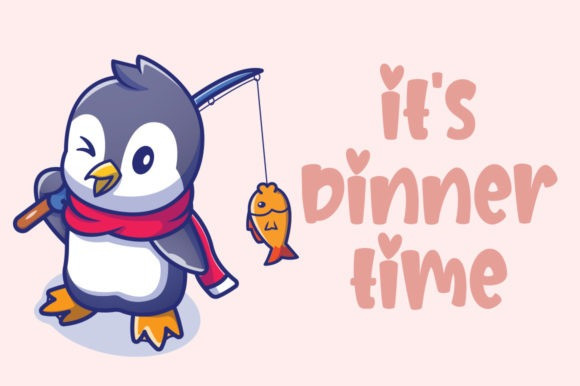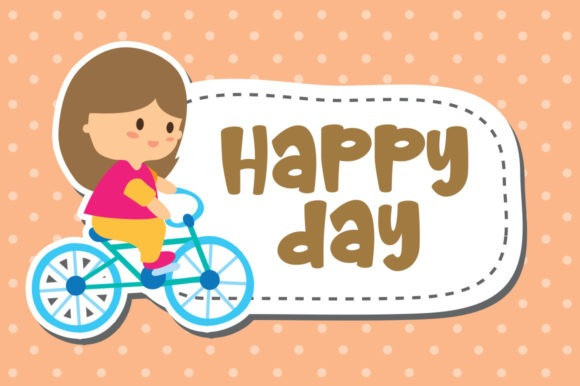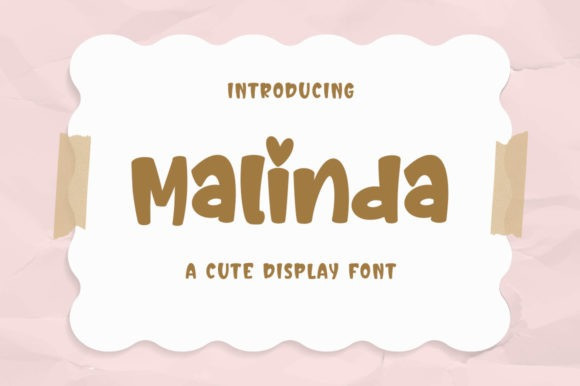
Malinda Font
Malinda Font is a cool, trendy and bold display font. Whether you’re looking for fonts for Instagram or calligraphy scripts for DIY projects, this font will turn any creative idea into a true piece of art!